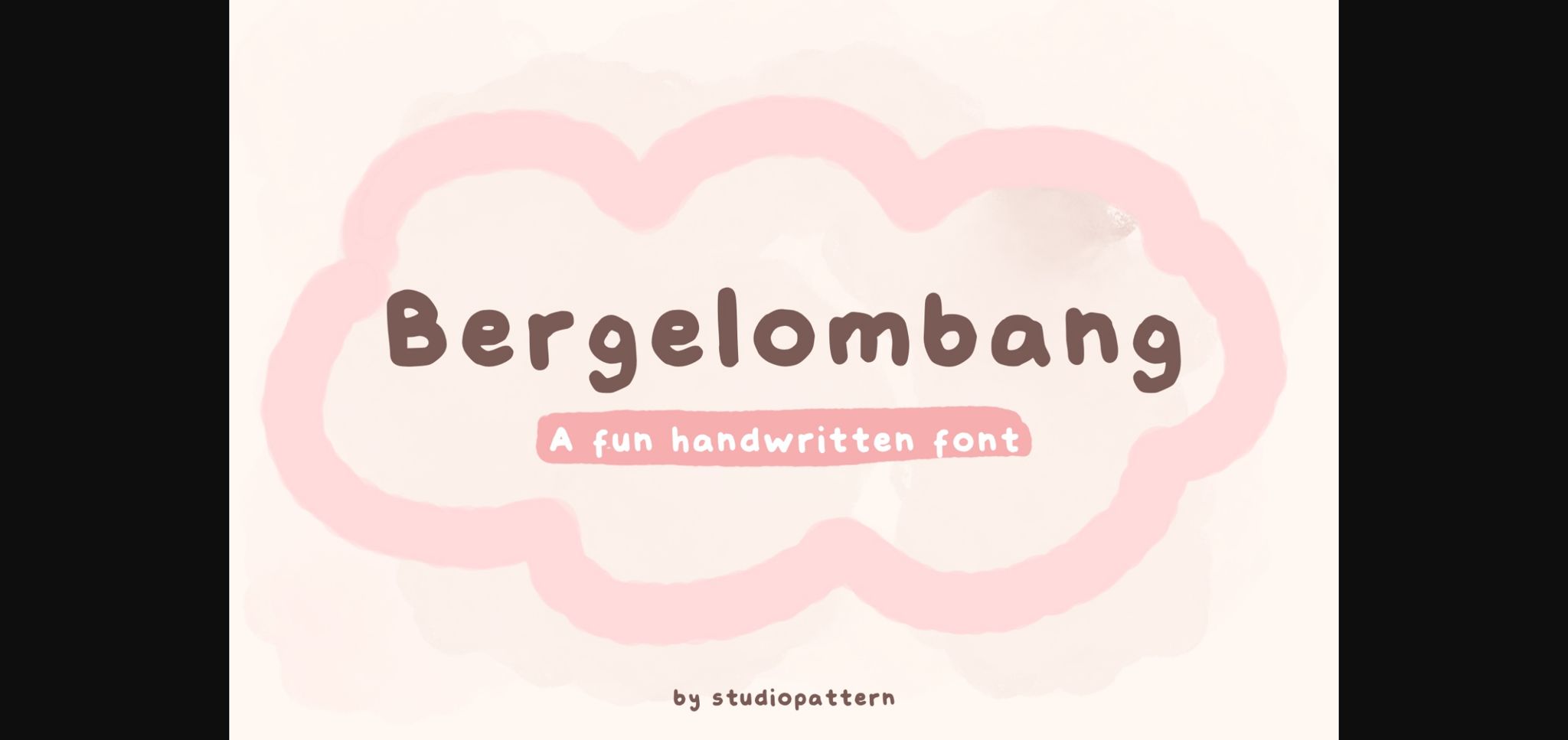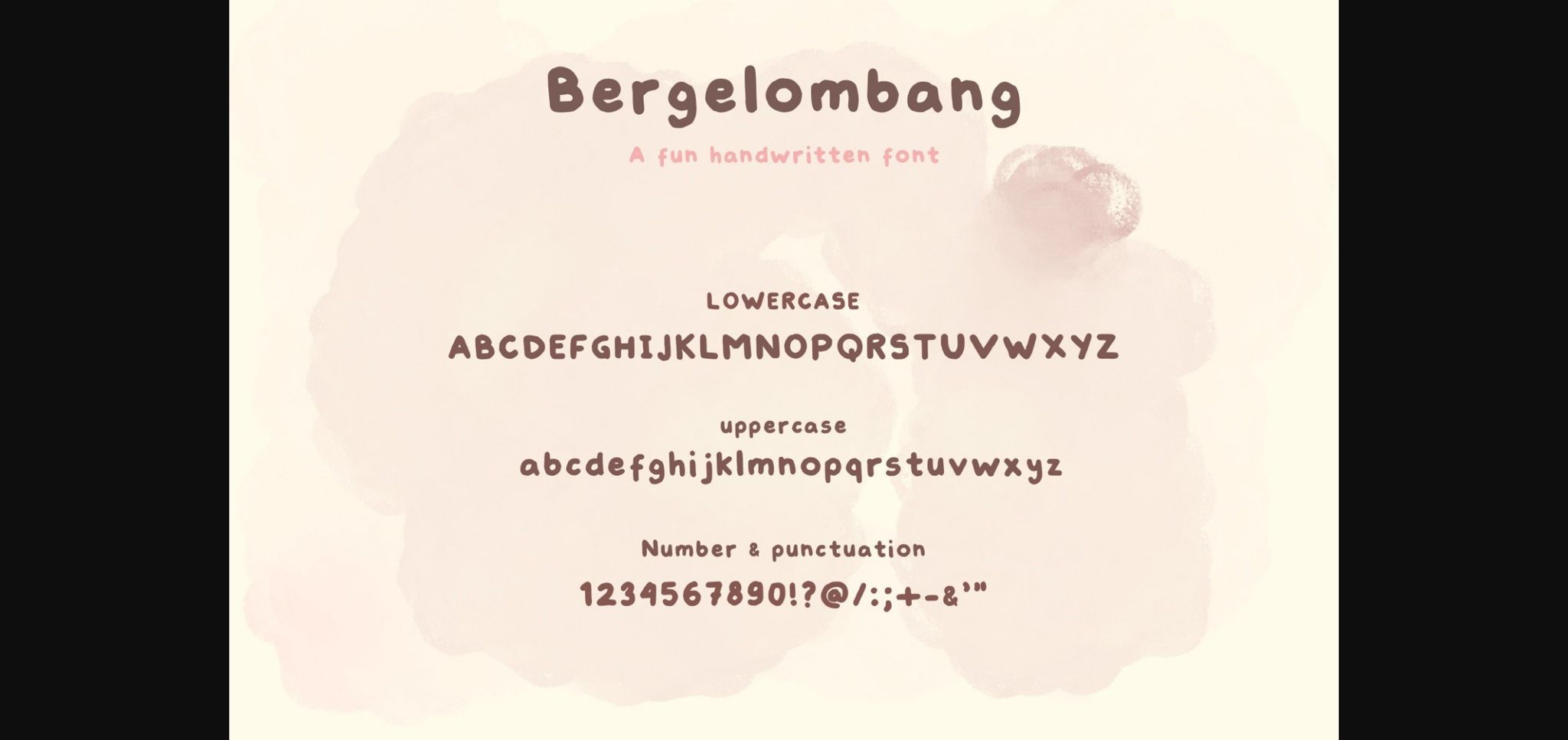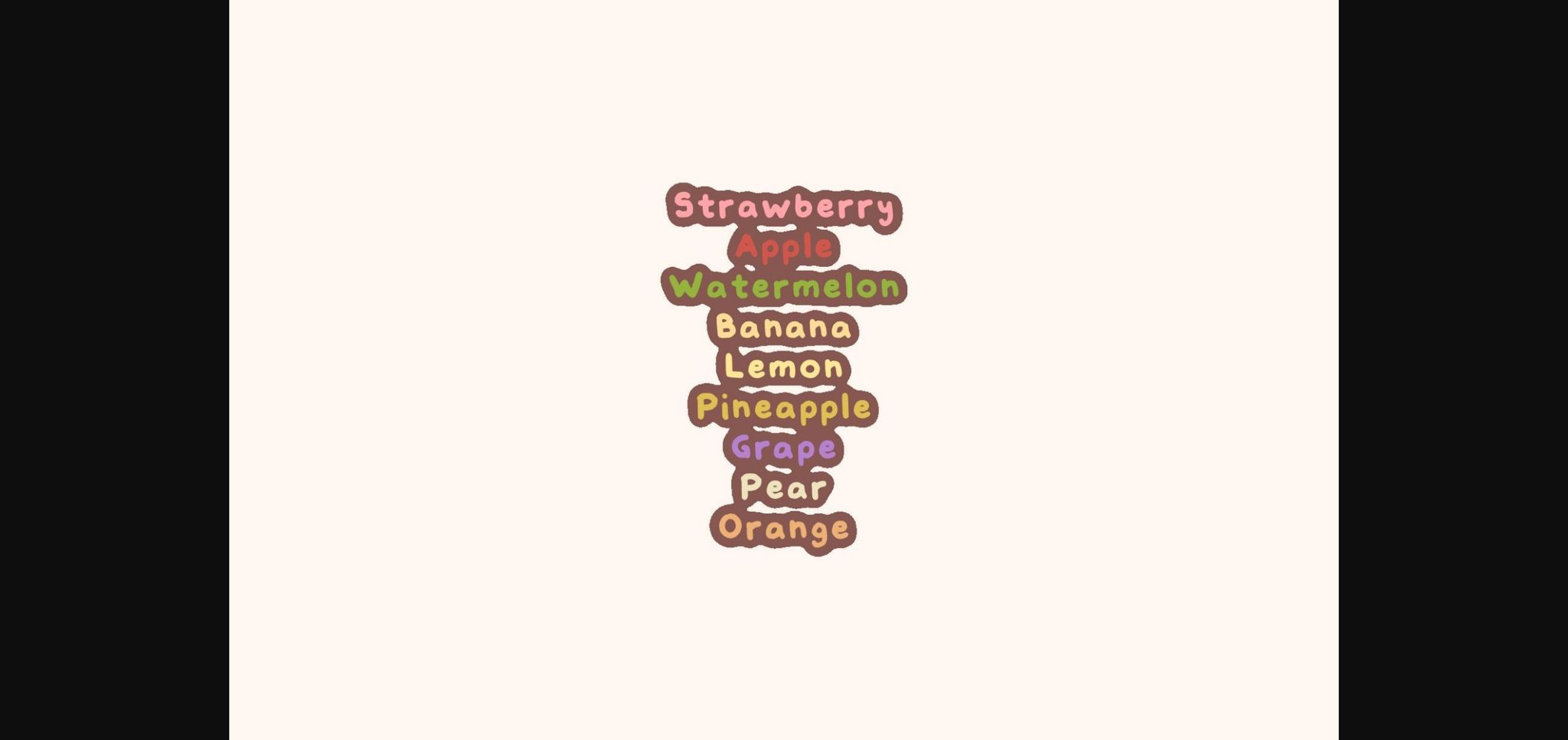
About Bergelombang Font
Bergelombang is a fun and cute handwritten font. Whether you’re using it for crafts, digital design, presentation, or making greeting cards, this font has the potential to become your favorite font, no matter the occasion.